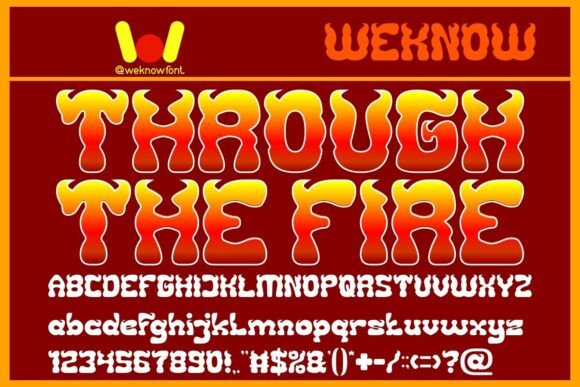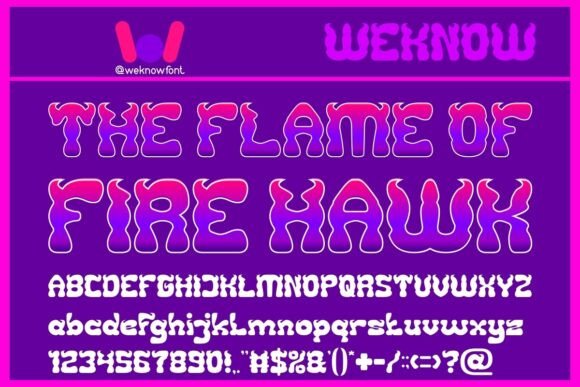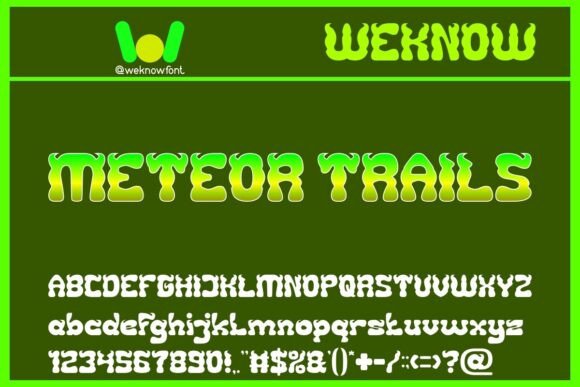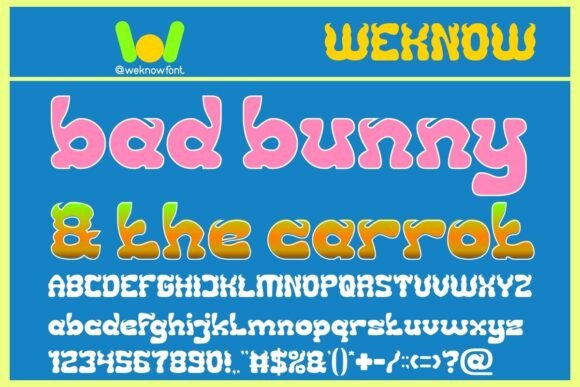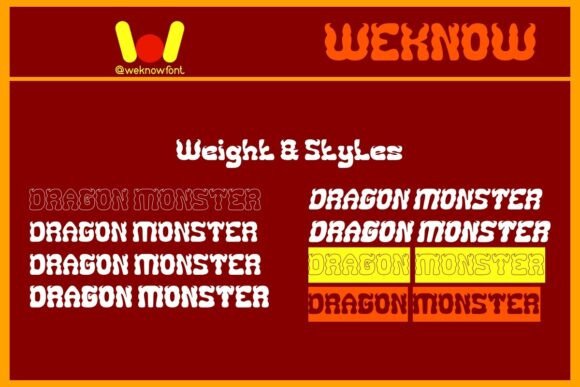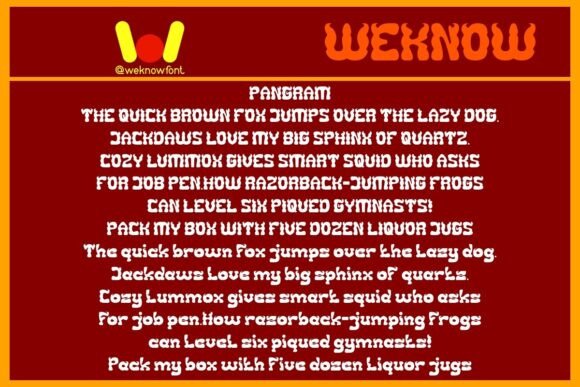
Unleash Your Inner Design Beast
Have you ever stared at a blank canvas, feeling the spark of creativity coursing through your veins? You know that moment when the ideas start flowing, and the possibilities seem endless? For designers, this is the moment when the magic happens.
That’s exactly what the Dragon Monster Font is all about – unleashing your creative beast and bringing your designs to life. This edgy and charismatic typeface is perfectly tailored for creating bold logos, logotypes, and headlines that demand attention. Whether you’re working on a corporate identity, a music project, or a video game, the Dragon Monster Font adds a burning flair that sets your designs apart.
Dragon Monster Font Key Features
- Unique Characteristics: This font boasts a unique blend of fantasy and monster-inspired elements, featuring intricate details and dynamic lines, making it perfect for gaming, fantasy, and horror-themed projects.
- Font Style: Dragon Monster Font offers a bold, dramatic, and eye-catching style, ideal for headings, titles, and other prominent text elements.
Dragon Monster Font Review
I recently had the chance to work with the “Dragon Monster Font” and here’s my honest review.
- The font’s unique design and fantasy feel are perfect for any project that requires a touch of magic.
- The bold and playful style makes it easy to grab the user’s attention and convey a sense of excitement.
- The font is highly customizable, allowing users to adjust the size, color, and other styles to fit their needs.
- The font may not be suitable for all types of content, particularly for formal or professional projects where a more conservative font is required.
- The font’s design can be overwhelming if used excessively, so it’s essential to use it sparingly and in combination with other fonts.
The “Dragon Monster Font” is a great choice for designers looking to add a touch of whimsy and fantasy to their projects. While it may have some limitations, its unique design and high customizability make it a valuable addition to any designer’s toolkit.
Tips for Getting the Most Out of the Dragon Monster Font
To get the most out of the Dragon Monster Font, use it to create dramatic and eye-catching designs, such as:
- Movie title sequences
- Comic book covers
- Video game packaging
Remember to pair the font with bold colors and striking graphics to create a truly memorable design.